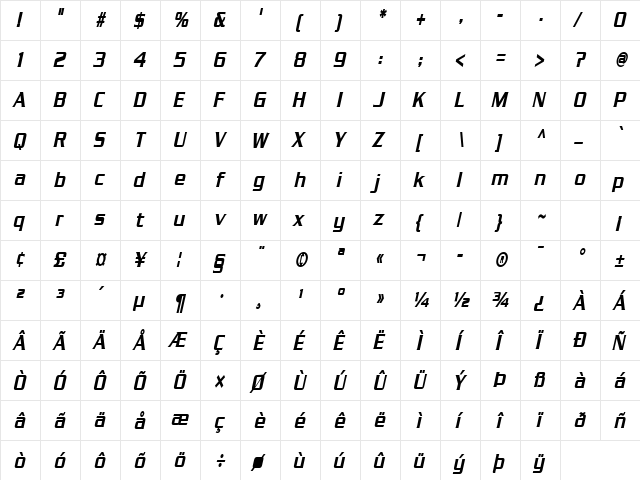
Chaney Thin BoldItalic
Design Context for Chaney Thin Typeface
Chaney Thin is a composed and adaptable typeface that performs quietly and consistently across a wide range of design contexts. Its italic angle brings a sense of urgency and motion to the letterforms. Its bold stroke weight gives it real presence on the page.